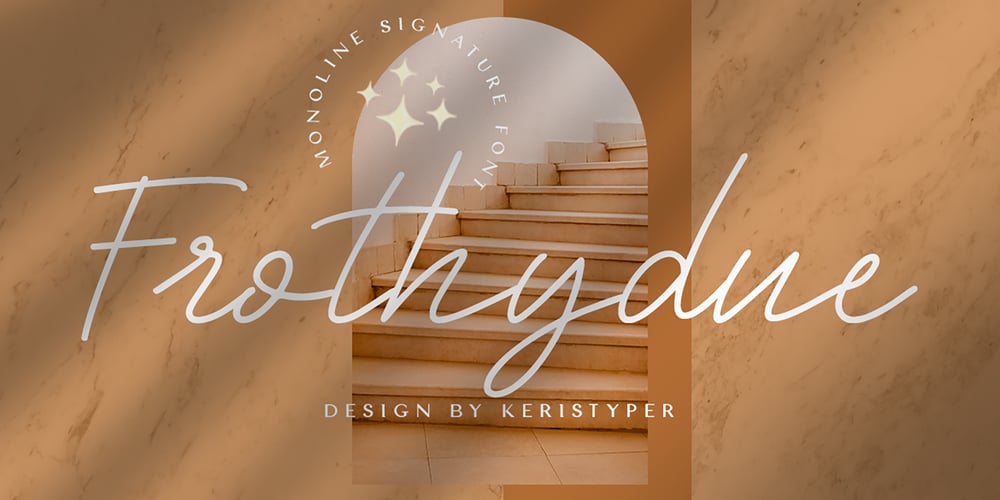
Frothydue Font Family was designed by Tezar Tantular and published by Keristyper Studio. Frothydue contains 1 styles and family package options. Frothydue is a lovingly crafted Signature script typeface that lends a natural feel to all your designs. This font looks very natural, perfect for all your large projects that require a handwritten touch.Frothydue is perfect for branding projects, logos, wedding designs, social media posts, advertisements, product packaging, product designs, label, photography, watermark, invitation, stationery, and any projects that need handwriting taste.Frothydue Font multilingual support: Afrikaans, Albanian, Catalan, Danish, Dutch, English, Estonian, French, Finnish, German, Icelandic, Indonesian, Italian, Malay, Norwegian, Portuguese, Spanish, Swedish, Zulu, and many more.What’s Included : Standard & Multilingual glyphs Ligature Works on PC & Mac Simple installations Accessible in Adobe Illustrator, Adobe Photoshop, Adobe InDesign, and even work on Microsoft Word. Hope you enjoy our font!